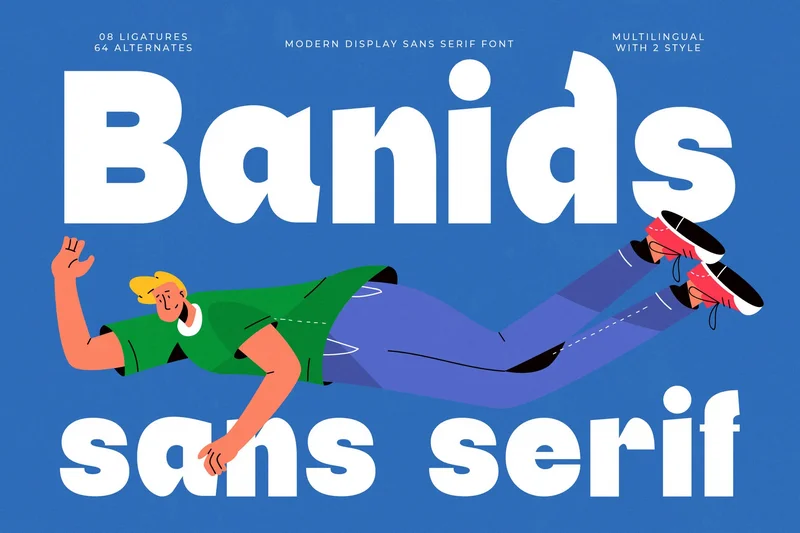
Banids – Modern Display Sans Serif Font
Banids Sans Serif is a modern display font with bold geometric shapes and clean lines, designed to create strong and contemporary typography. Featuring stylish ligatures and versatile alternates, this typeface is perfect for logos, posters, social media graphics, packaging, branding, and editorial layouts. With its playful yet professional character, Banids Sans Serif is a versatile choice for both digital and print projects, bringing clarity and modern energy to every design.